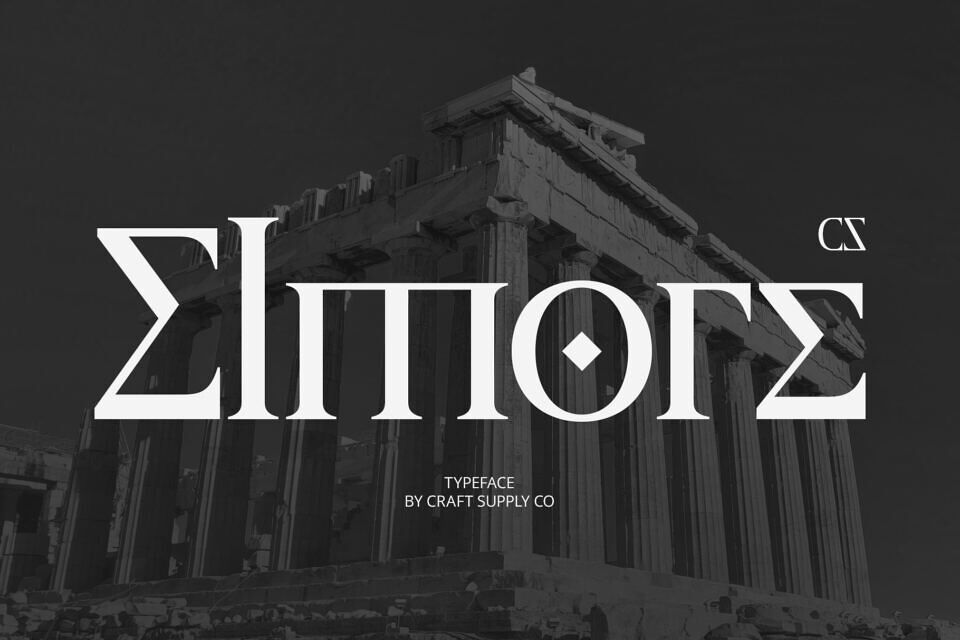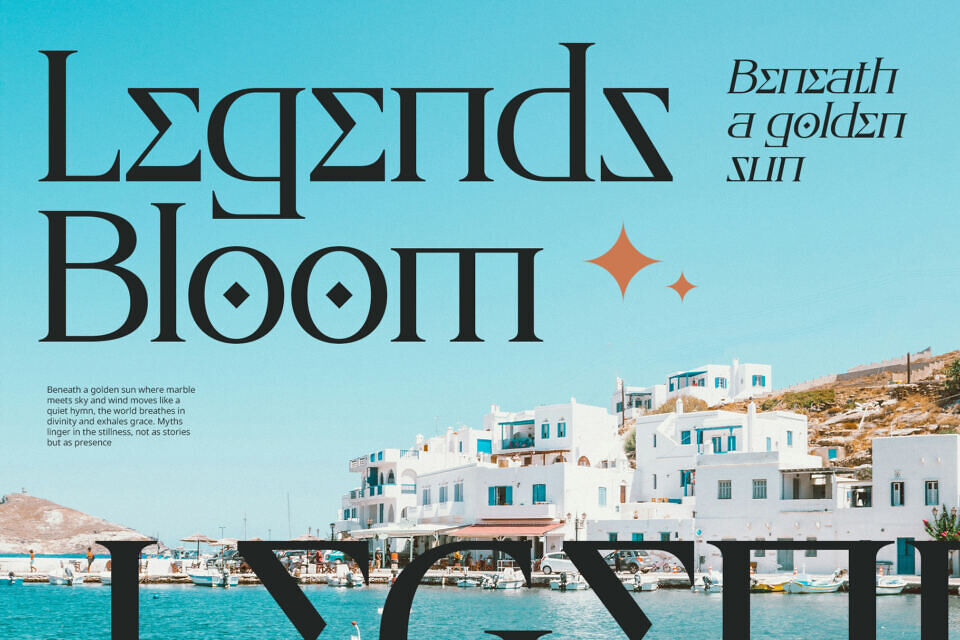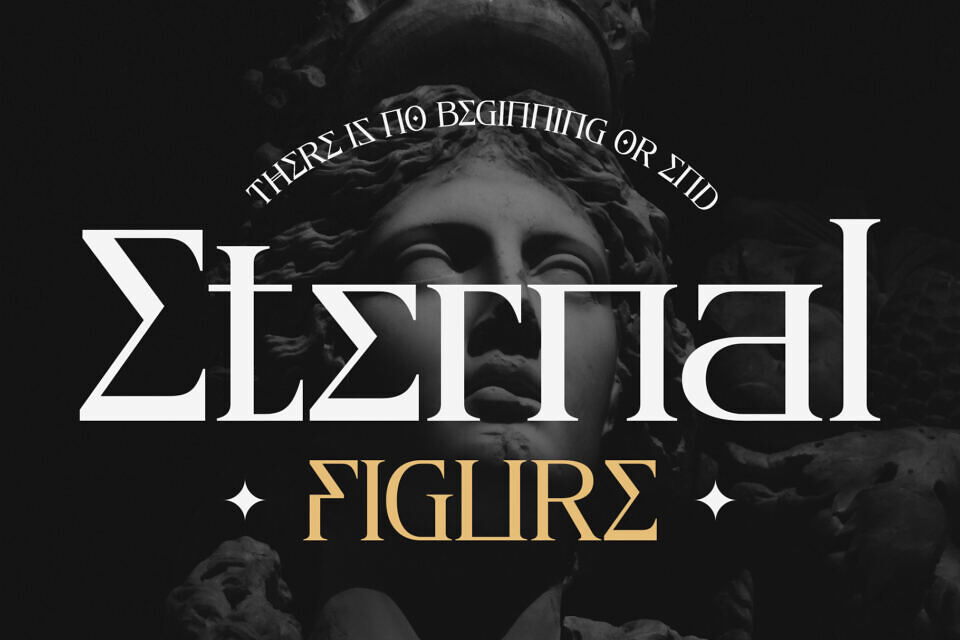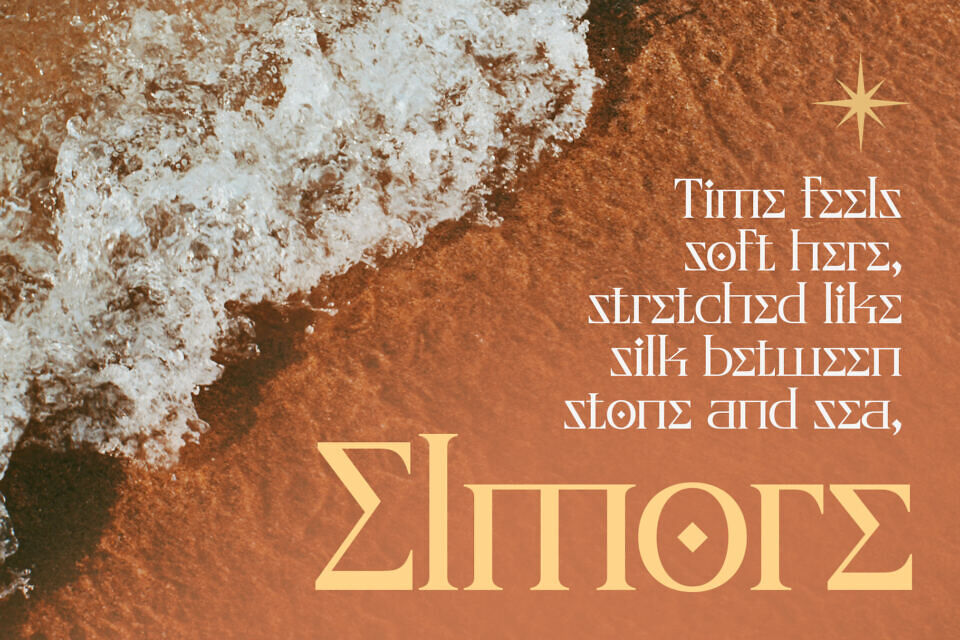
CS Elmore Font
CS Elmore is a display serif font that masterfully blends modern classic design with the enduring beauty of Ancient Greek-inspired letterforms. Its sharp yet refined serifs, paired with clean, balanced proportions, offer a typeface that feels both historic and current, making it ideal for projects that demand a sense of intellectual depth and visual sophistication.
Drawing inspiration from Greek inscriptions and classical architecture, CS Elmore introduces subtle, stylized curves and proportions that hint at the philosophical and artistic richness of the ancient world. Yet, its contemporary structure ensures it remains clear, elegant, and usable in modern contexts.
This typeface is perfect for editorials, academic publications, luxury branding, book covers, or any design that seeks to merge classical prestige with a modern identity.